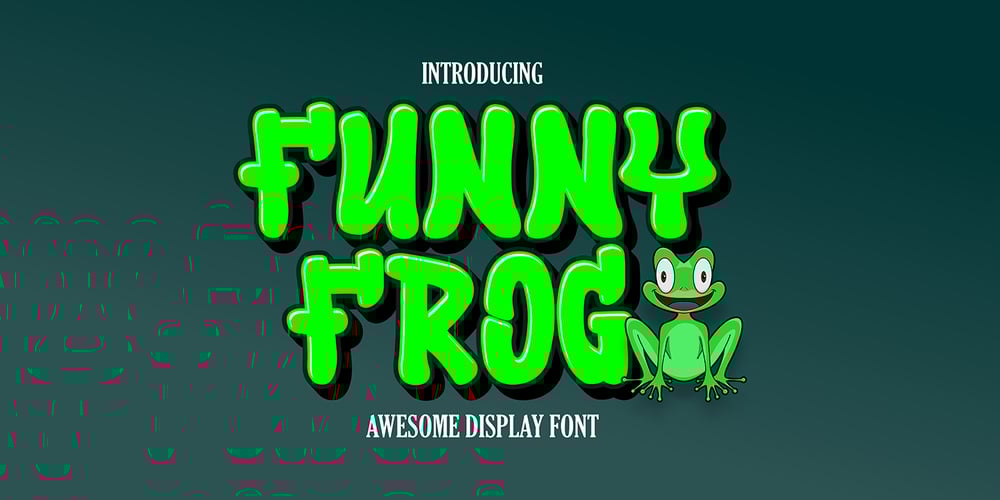
Funny Frog Display Font Family was designed by Sipanji and published by Sipanji21. Funny Frog Display contains 1 styles and family package options. Funny Frog – A Fun Display Font With Cute Characters. It will elevate a wide range of design projects to the highest level, be it branding, headings, Kids Zone, designs, invitations, Snack Package, logotype, wall art illustration, apparel, labels, and much more!